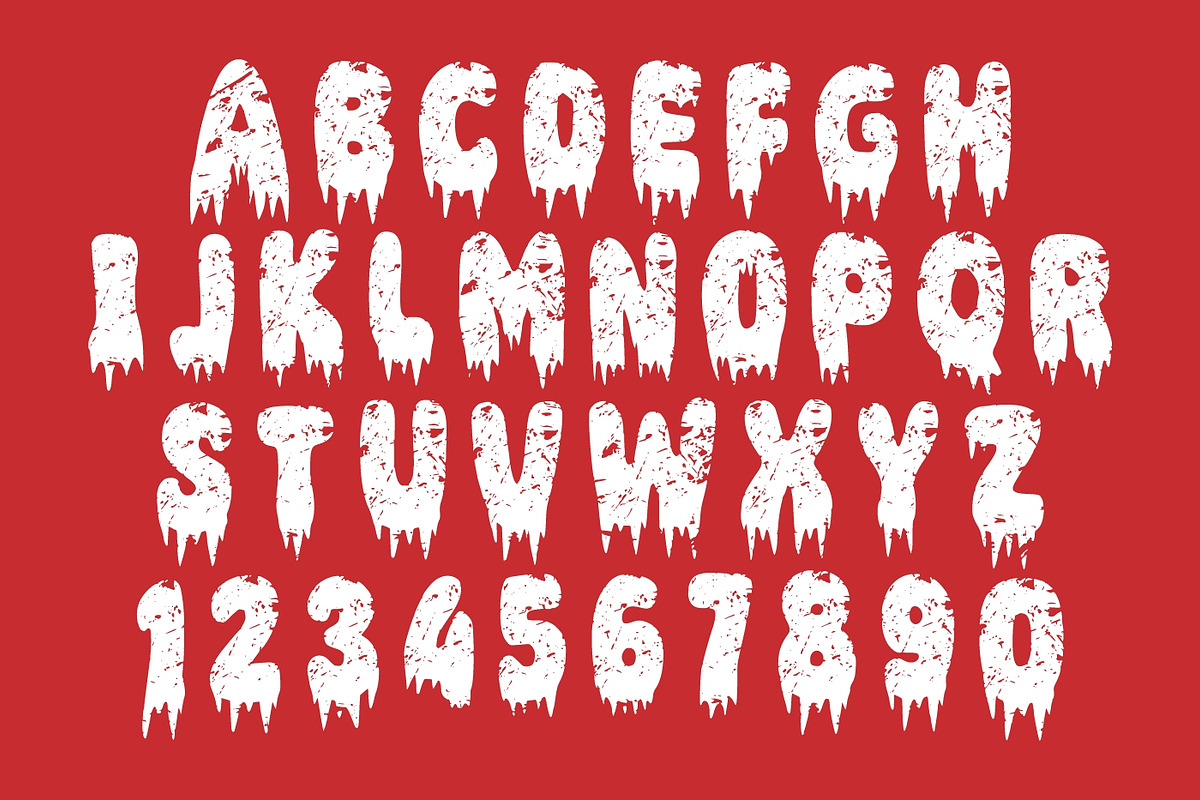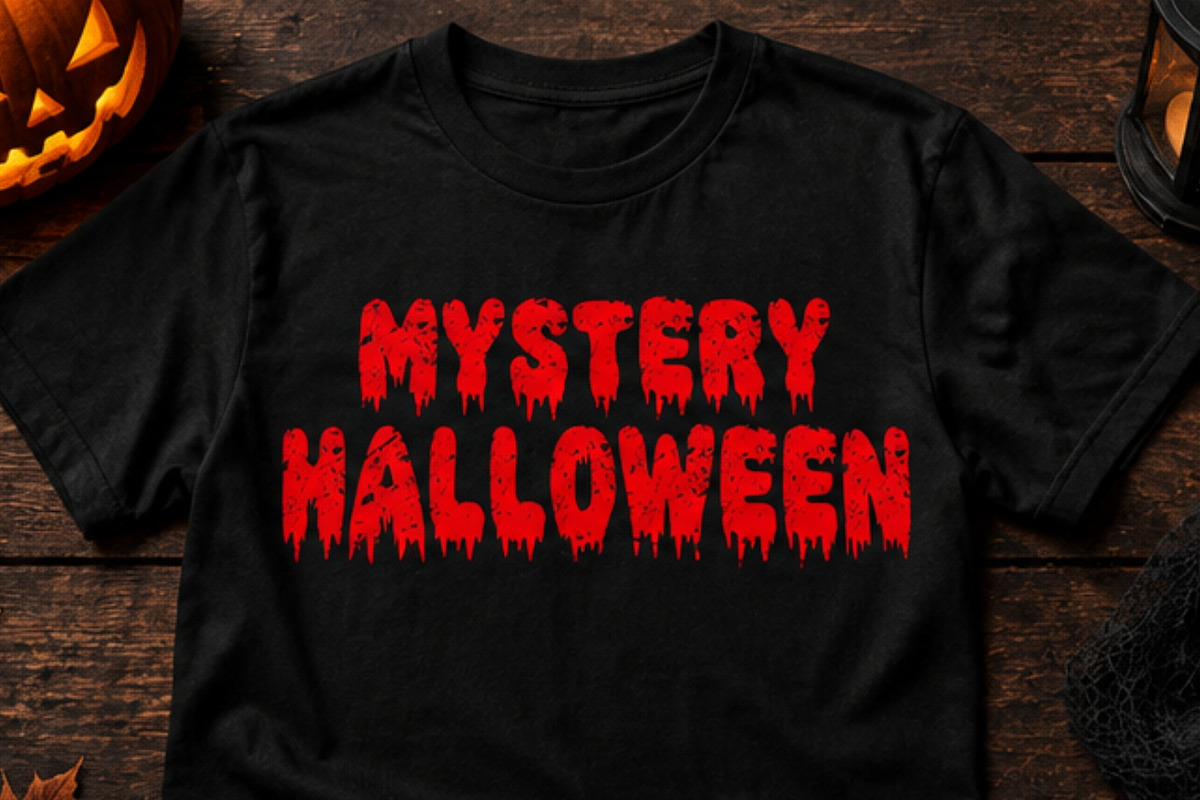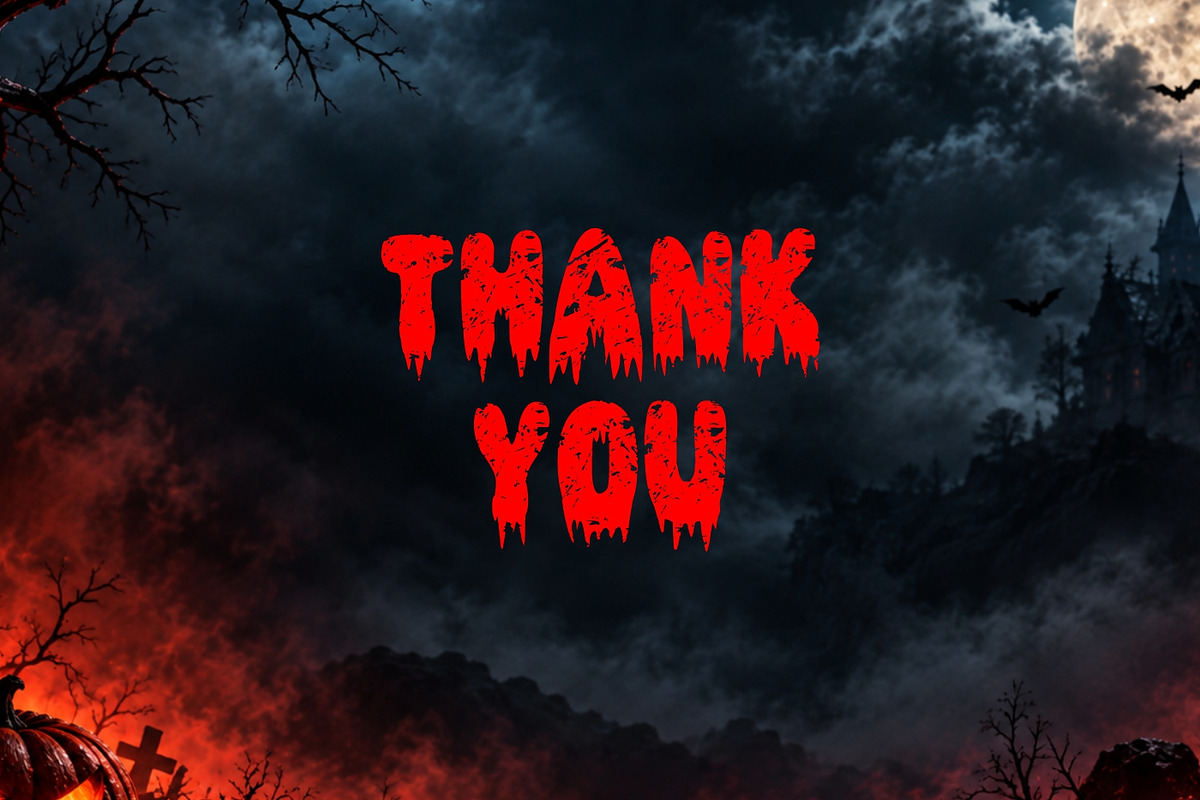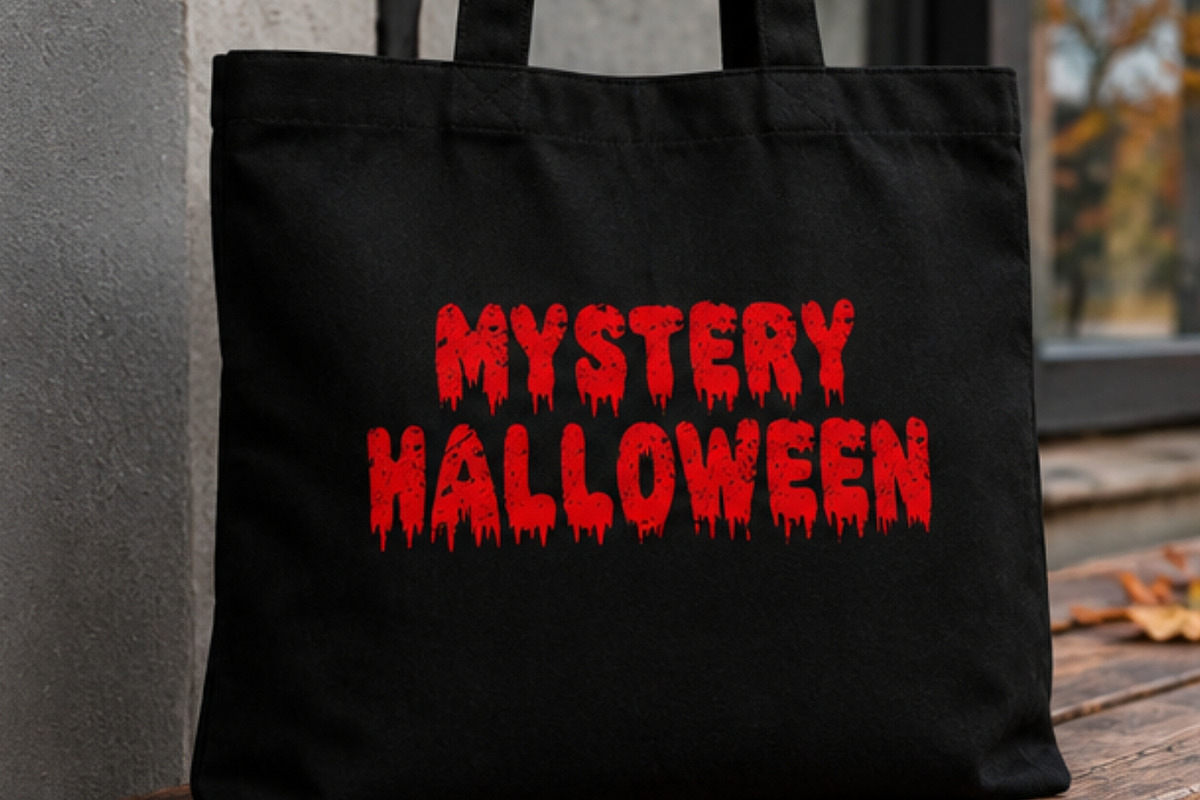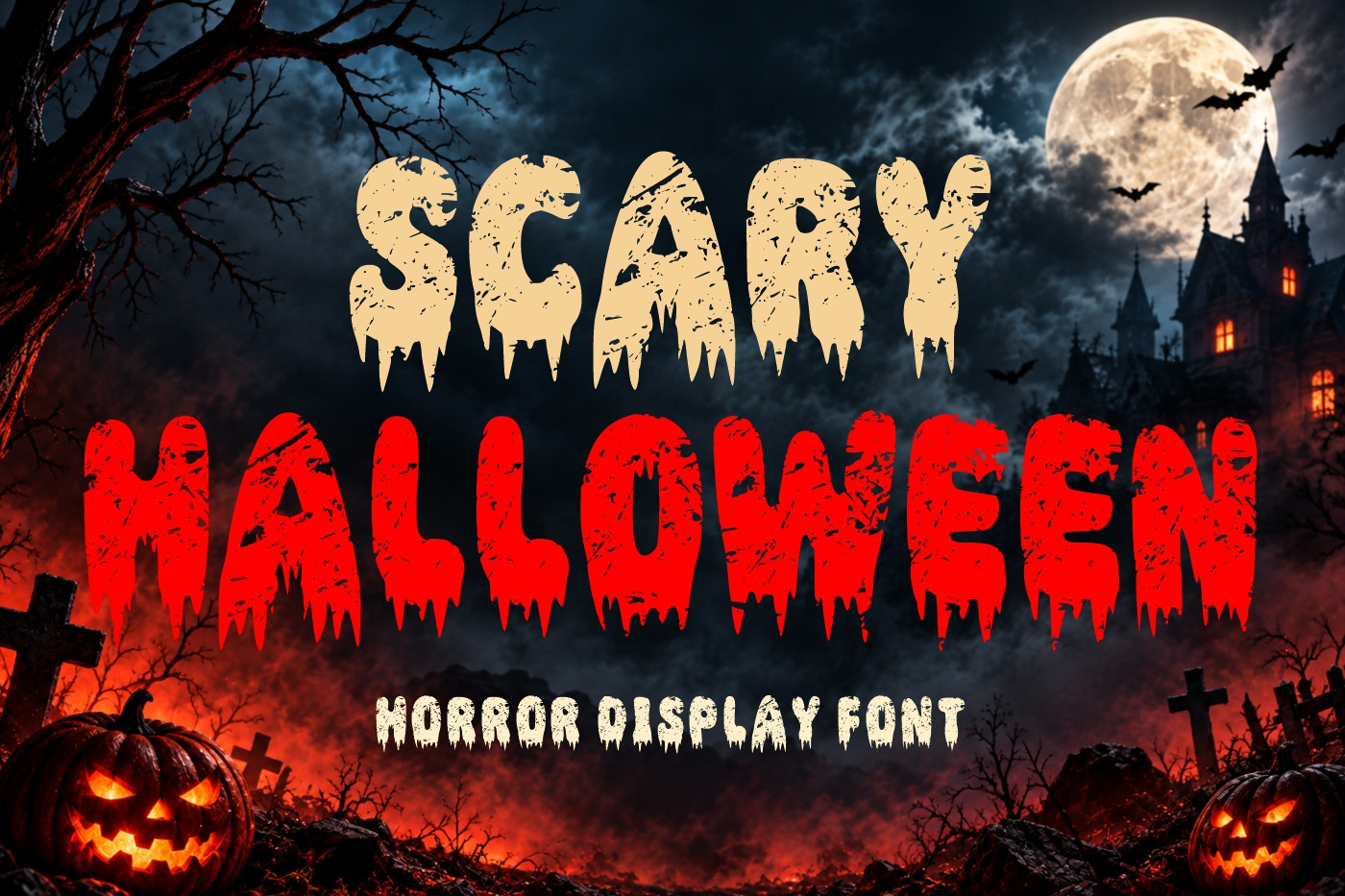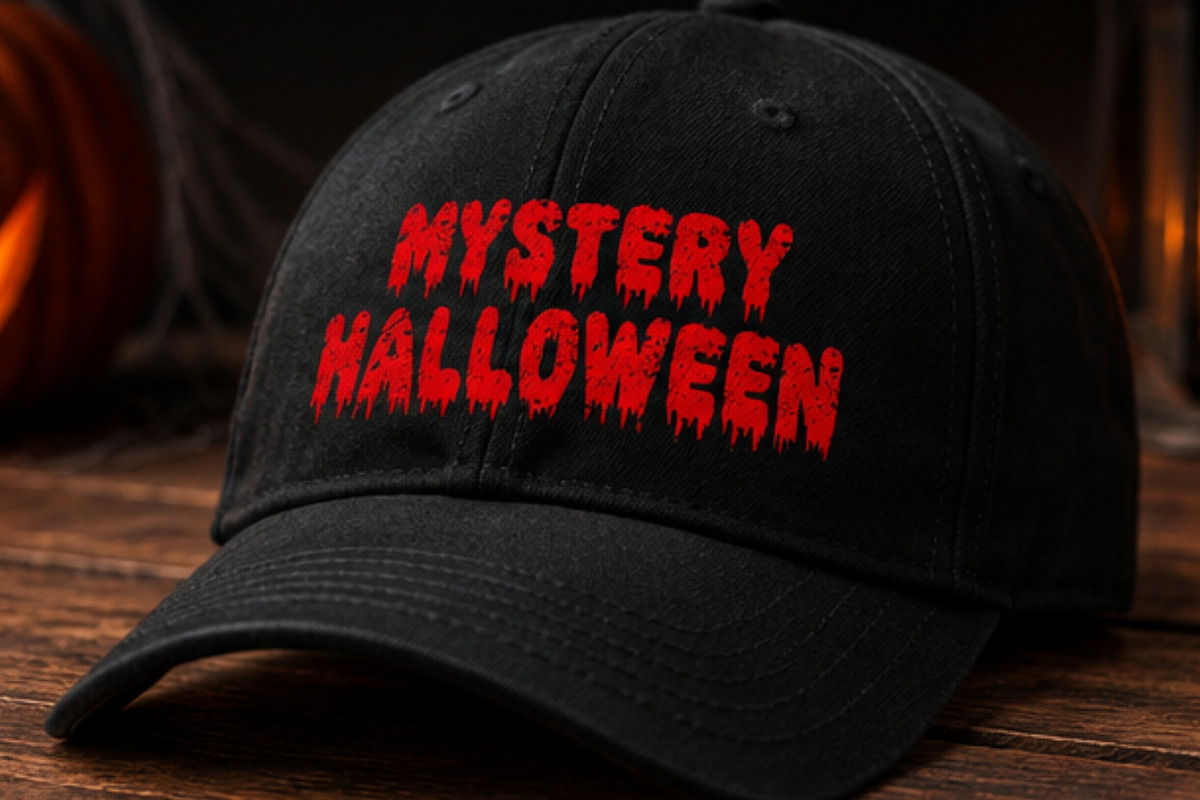
Scary Halloween - Horror Font
SCARY HALLOWEEN is a bold and terrifying horror display font created to bring an intense spooky atmosphere to your designs. Its heavy letterforms feature dramatic dripping shapes combined with a distressed, scratched texture, giving the typeface a raw, creepy, and sinister appearance. The strong silhouette makes it highly visible and impactful, especially for Halloween and horror-themed artwork.
Perfect for Halloween posters, horror movie graphics, haunted house promotions, scary T-shirt designs, spooky invitations, stickers, merchandise, social media artwork, posters, sublimation projects, Cricut crafts, and other dark-themed creative projects. Whether you want a classic Halloween look or a more frightening horror aesthetic, SCARY HALLOWEEN adds an unmistakably creepy character to your typography.